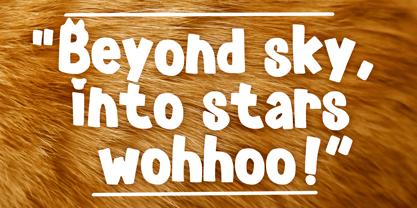
Bear Story
by Mvmet
The Bear Story Font Family was designed by Gabriel Valentinus and published by Mvmet. Bear Story contains 1 styles.
Bear Story is a cute animal themed display font. Create something with it from regular typing notes, to t-shirts, kids’ book designs, greeting cards, stickers, posters, or anything that needs a casual touch. Fall in love with its incredible style and use it to create lovely designs!
Designers: Gabriel Valentinus
Publisher: Mvmet
Foundry: Mvmet
Design Owner: Mvmet